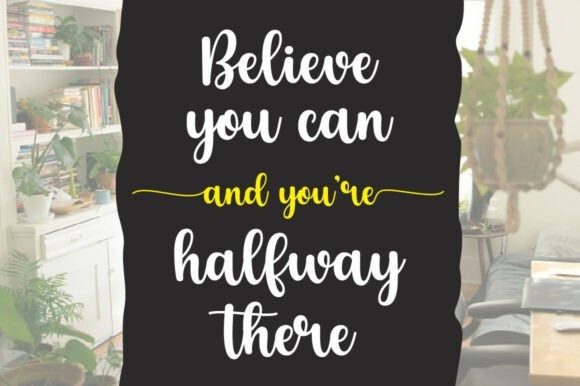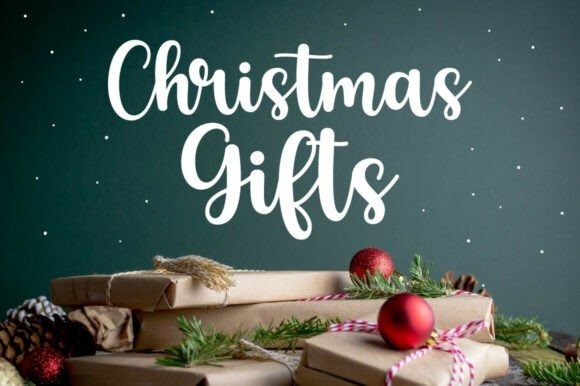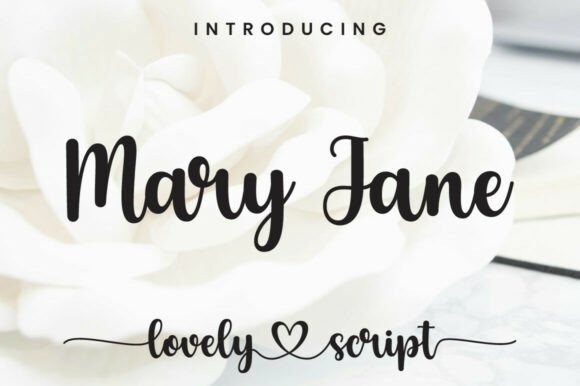
Mary Jane Script Font
Mary Jane Script Font is a modern romantic calligraphy font with smooth handwritten flows. Mary Jane font is perfect for logos, wedding stationery, cards, gift designs, photography, watermark, product packaging, and handwritten quotes.